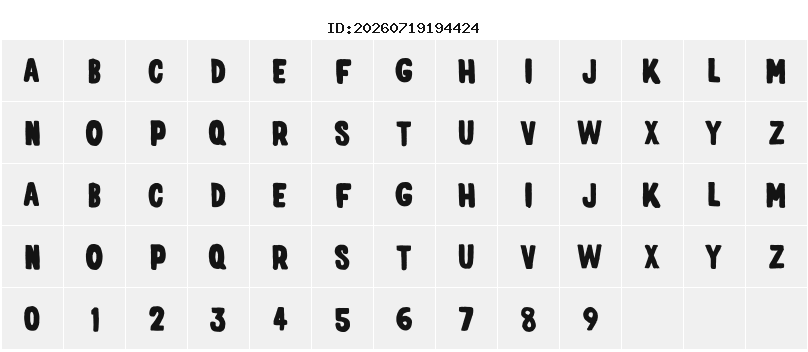
elph_chubba Preview
• Font Name: elph_chubba
• Font Style: elph
• Full Font Name: elph_chubba
• PostScript Name: elph_chubba
• Character Count: 75
• Designer: elph
• Manufacturer: elph. manystyles crew 2005
About elph_chubba.ttf
elph_chubba.ttf is a modern, elegant sans-serif font designed for ultimate readability and visual harmony. Perfect for branding, headlines, web design, and print materials.